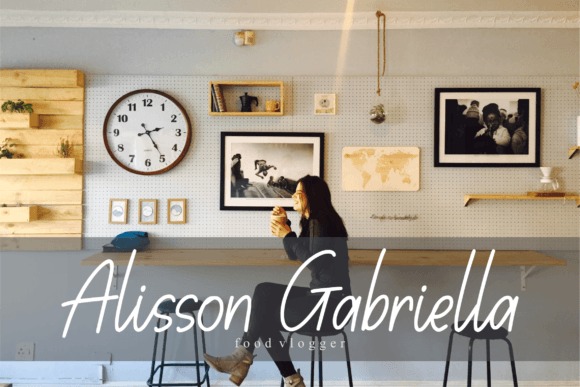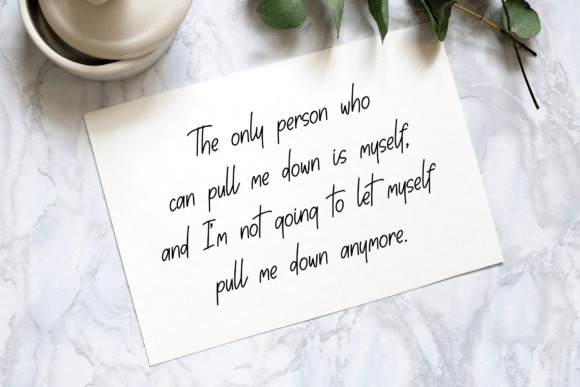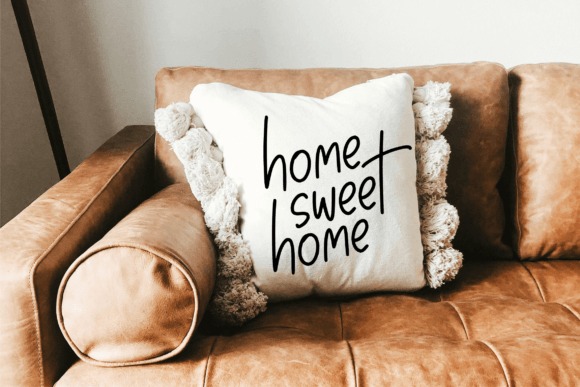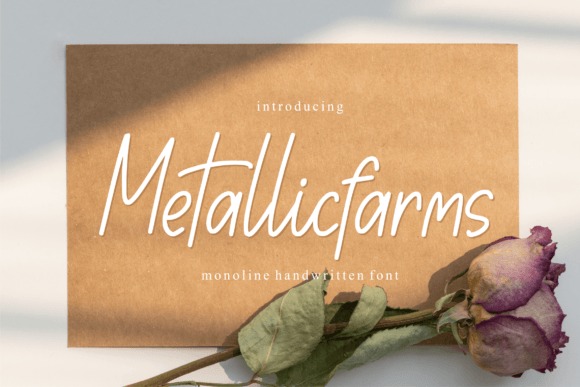
Metallicfarms Font
Metallicfarms Handwritten Font
This is a monoline handwritten font. Metallicfarms is perfect for product packaging, branding project, megazine, social media, wedding, or just used to express words above the background.